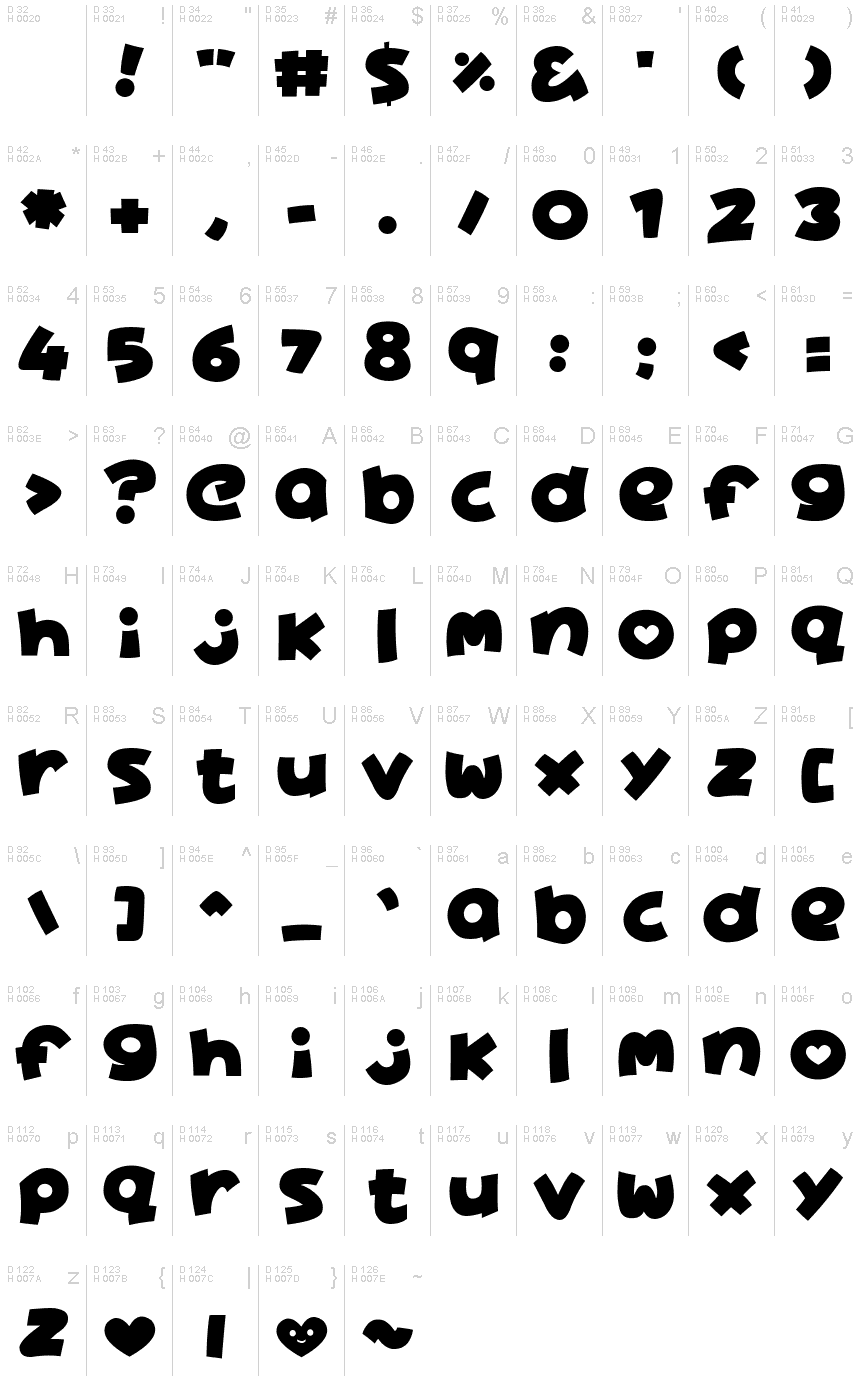
Lovely Cute
Lovely Cute is a bold, wide display font created by Darrell Flood. It features a unique cartoon style that brings an extra touch of fun and cuteness to any project. Perfect for creating logos, titles, posters, and other designs that need to make a lasting impression. Lovely Cute can also be used for scrapbooking, cards, invitations and more!